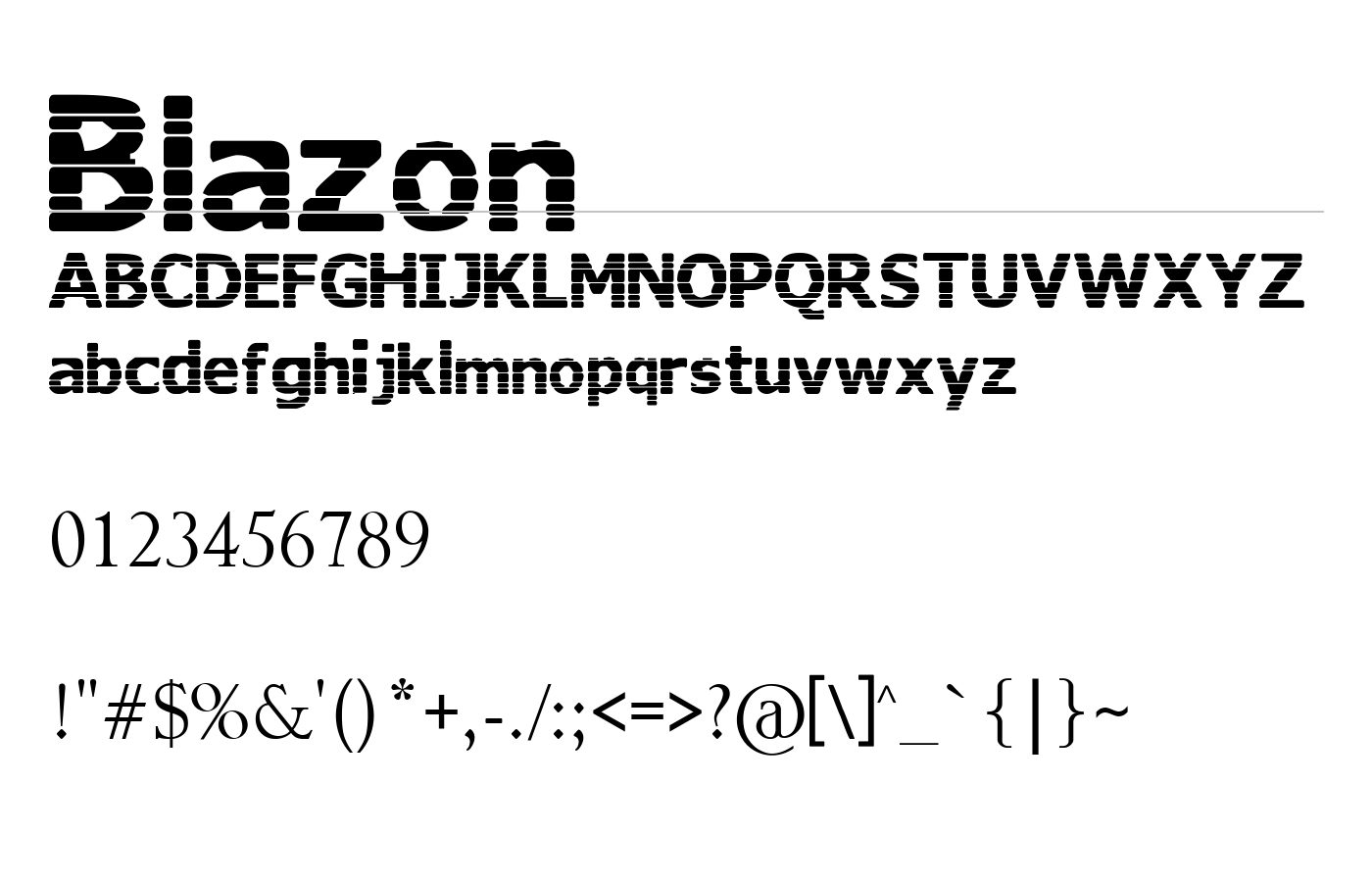
Blazon is a bold, condensed sans serif font with a striking segmented design that creates a futuristic, industrial feel. Its strong, blocky letterforms combined with the horizontal breaks give it a unique, tech-inspired character perfect for eye-catching headlines, logos, and modern branding. This font works well where a dynamic and edgy style is desired, adding personality and impact to digital, advertising, or entertainment projects.
Blazon Font